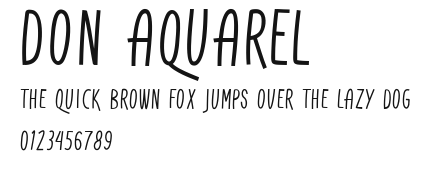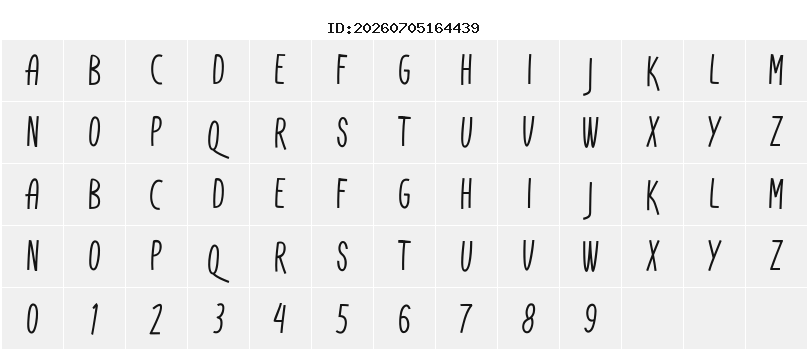
About Don Aquarel.ttf
Don Aquarel.ttf is a modern, elegant sans-serif font designed for ultimate readability and visual harmony. Perfect for branding, headlines, web design, and print materials.